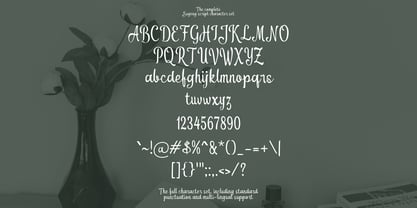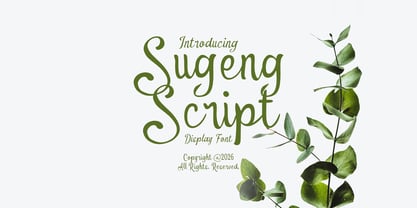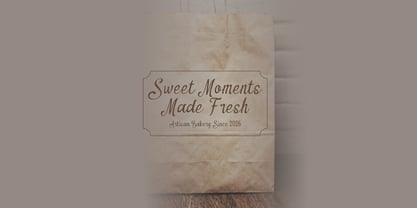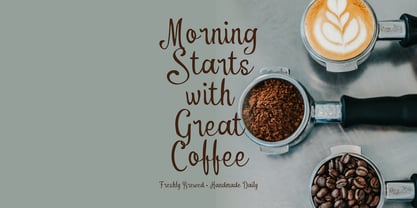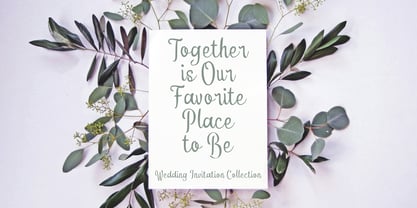
Sugeng Script
by Mei Suseno
The Sugeng Script Font Family was designed by Wahyu Eka Prasetya, Mei Suseno and published by Mei Suseno. Sugeng Script contains 2 styles and family package options. More about this family
Sugeng Script is a charming handwritten display font that blends playful curves with a natural flowing style. Designed to bring warmth and personality to your creative projects, this font features smooth letterforms, elegant swashes, and a handcrafted touch that makes every design feel authentic. Whether you're creating logos, branding, packaging, wedding invitations, social media graphics, posters, or merchandise, Sugeng Script delivers a friendly and eye-catching appearance. Its versatile style makes it perfect for both modern and vintage-inspired designs, helping your typography stand out with effortless charm.